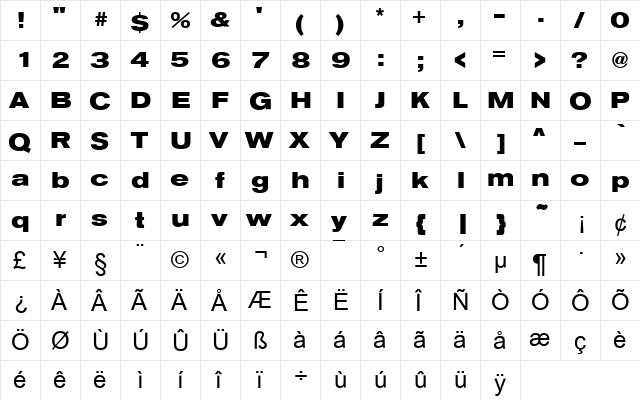
Ayar_Tabaung_Pub Bold
| Foundry | Ayar Unicode Group |
| Designer | Ayar Unicode Group |
Design Context for Ayar_Tabaung_Pub Typeface
Ayar_Tabaung_Pub offers clean, dependable letterforms without strong stylistic allegiance, making it a practical choice for designers who need flexibility. Its bold stroke weight gives it real presence on the page.